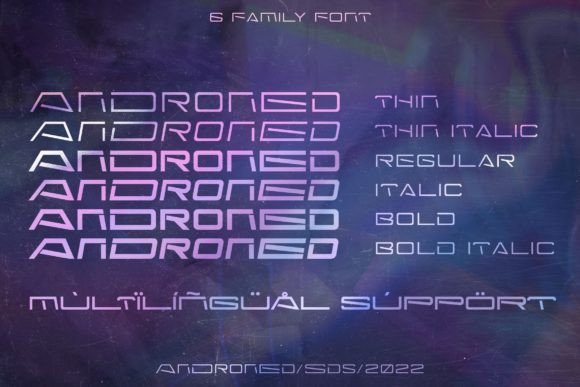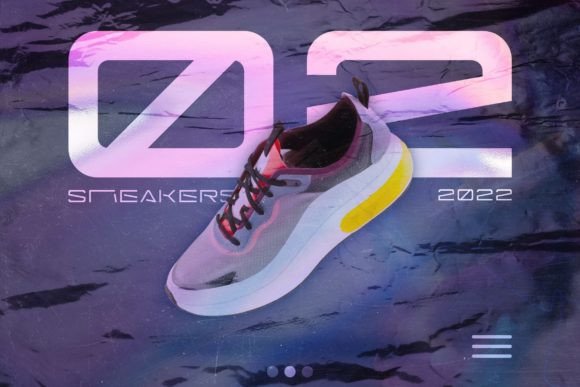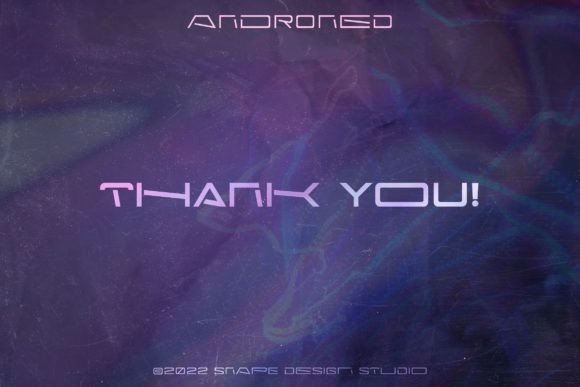
Introducing Androned Font: The Future of Typography
In the world of design, typography plays a crucial role in conveying messages, expressing creativity, and setting the tone for a brand or project. With the ever-evolving landscape of technology, designers and crafters are constantly on the lookout for modern fonts that reflect innovation and sophistication. This is where Androned Font comes into play – a cutting-edge typeface that embodies the essence of futuristic design.
The Inspiration Behind Androned
Androned Font was inspired by the rapid advancements in technology and the vision of a more sophisticated future. The creators of Androned aimed to craft a font that not only resonates with today’s digital age but also anticipates the elegance and refinement that tomorrow’s technology will bring. By fusing modernity with luxury, Androned Font was born – a typographic masterpiece that adds a touch of opulence to any design project.
Design Characteristics of Androned Font
Androned Font boasts a sleek and futuristic design, characterized by clean lines, precise curves, and a sense of fluidity. Its modern aesthetic makes it perfect for projects that demand a high level of sophistication, such as luxury branding, high-end product design, and futuristic-themed artwork. The font’s unique features include:
- Geometric precision: Androned’s letterforms are crafted with geometric precision, giving it a distinctly modern and tech-savvy feel.
- Elegant curves: The font’s curves are smooth and refined, adding a touch of luxury and sophistication to any design.
- Versatility: Androned Font comes in various weights and styles, making it suitable for a wide range of applications, from digital displays to print materials.
Why Choose Androned Font for Your Design Projects?
Androned Font offers a multitude of benefits for designers and crafters looking to elevate their projects. Here are some compelling reasons to choose Androned:
- Unique identity: Androned Font helps you create a distinctive visual identity that sets your brand or project apart from the competition.
- High-end aesthetic: The font’s luxurious design adds a touch of sophistication and elegance to any project, making it perfect for high-end clients or premium products.
- Flexibility: Androned Font can be used across various mediums, including digital displays, print materials, and even video productions.
- Easy to read: Despite its futuristic design, Androned Font remains highly legible, ensuring that your message is conveyed clearly and effectively.
Using Androned Font in Your Design Workflow
- Pair with complementary fonts: Combine Androned Font with other fonts that share similar design characteristics to create a cohesive visual identity.
- Experiment with colors and textures: Take advantage of Androned’s versatility by experimenting with different colors, textures, and effects to create a unique look.
- Pay attention to typography: Ensure that your typography is balanced and harmonious, using Androned Font to create visual hierarchy and emphasize key messages.
Androned Font is a game-changer for designers and crafters seeking to infuse their projects with a futuristic and sophisticated edge. With its unique design characteristics, versatility, and luxury aesthetic, Androned Font is poised to become a go-to choice for high-end design projects. Whether you’re creating a luxury brand, designing a futuristic-themed artwork, or simply looking to elevate your typography, Androned Font is the perfect choice. Experience the future of typography today with Androned Font!